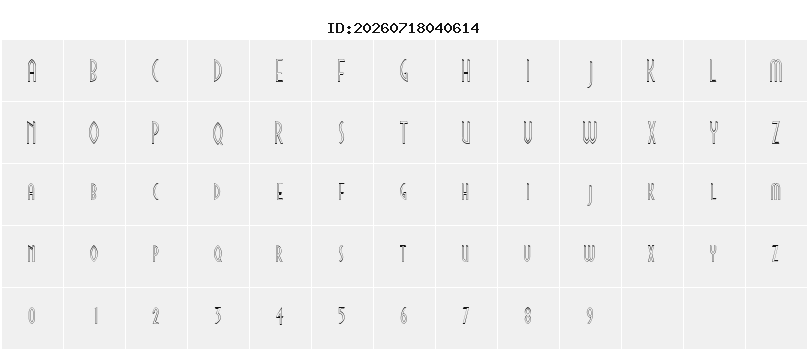
CinemaOutline Preview
• Font Name: CinemaOutline
• Font ID: Macromedia Fontographer 4.1.5 CinemaOutline
• Full Font Name: CinemaOutline
• Version: Macromedia Fontographer 4.1.5 3/25/97
• PostScript Name: CinemaOutline
• Character Count: 252
About CinemaOutline.ttf
CinemaOutline.ttf is a modern, elegant sans-serif font designed for ultimate readability and visual harmony. Perfect for branding, headlines, web design, and print materials.